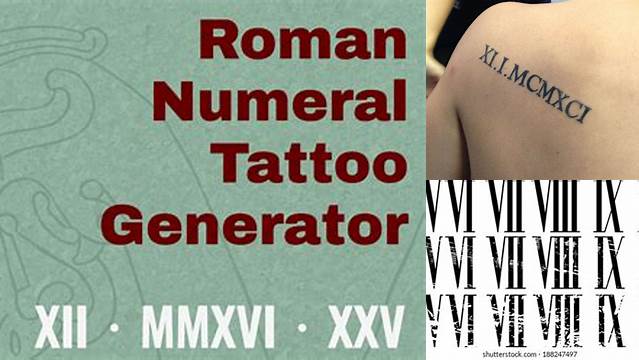
Free Roman Numeral Tattoo Font Generator
So, you're thinking about getting a tattoo? Awesome! And you're digging the classic look of roman numerals? Even better! But before you head to the tattoo parlor, let's talk about how to get that perfect roman numeral design. One of the coolest ways to do this is by using a free roman numeral tattoo font generator. These tools can help you visualize your tattoo in different fonts and styles, making sure you end up with something you absolutely love. Let's dive into the world of roman numeral tattoos and how these generators can be your best friend in the design process.
1. Understanding Roman Numerals for Tattoos
First off, let's make sure we're all on the same page about roman numerals. These ancient symbols have a timeless appeal, making them a popular choice for tattoos. Whether it's a date, a name, or a significant number, roman numerals add a touch of elegance and mystery. Before you even start looking at fonts, make sure you've got your numbers right. I (1), V (5), X (10), L (50), C (100), D (500), and M (1000) are the building blocks. Get the sequence wrong, and your tattoo might not mean what you think it does!
Why Choose Roman Numerals?
Roman numerals offer a unique way to commemorate important dates or numbers. They're classic, sophisticated, and have a certain air of mystery. Think about it: a birthdate in roman numerals looks way more artistic than just plain numbers. Plus, they're not as immediately obvious to everyone who sees them, adding a layer of personal meaning. But remember, double-check your numerals! Nothing's worse than a permanent mistake.
Speaking of mistakes, let's cover some common pitfalls. The most frequent error? Incorrectly converting numbers. Always double or even triple-check your conversion, and maybe even have a friend look it over. Another mistake is choosing a font that's too intricate or thin. Over time, fine lines can blur, making your tattoo look like a mess. Stick to bolder, clearer fonts for longevity. And finally, consider the placement. A long string of numerals might not fit well on a small area.
2. The Appeal of Free Roman Numeral Tattoo Font Generators
Okay, now that we've got the basics down, let's talk about why these font generators are so awesome. These tools let you play around with different styles without spending a dime. You can see how your chosen numerals look in various fonts, sizes, and arrangements. It's like having a virtual tattoo artist at your fingertips! And the best part? It's free! You can experiment to your heart's content until you find the perfect design.
Benefits of Using a Generator
There are so many upsides to using a generator. For starters, you get instant visualization. No more guessing how a certain font will look on your skin. You can see it right there on the screen. Plus, these generators offer a ton of variety. From classic serif fonts to modern sans-serif styles, you can explore a wide range of options. And let's not forget the convenience factor. You can do this from the comfort of your own home, anytime you want. No appointments, no pressure, just pure creative freedom.
Limitations to Keep in Mind
Of course, no tool is perfect. Free generators might have limitations. Some might not offer as many font choices as paid software, and the customization options might be a bit restricted. Also, the preview you see on the screen is just that—a preview. The final tattoo will depend on the skill of your artist and how the ink settles on your skin. So, while a generator is a great starting point, it's not the final word. Always consult with your tattoo artist before making any decisions.
3. Top Free Roman Numeral Tattoo Font Generators
Ready to dive in? Let's look at some of the top free roman numeral tattoo font generators out there. These tools offer a range of options and features, so you can find the one that best suits your needs. We'll cover some popular choices and what makes them stand out.
List of Recommended Generators
There are several fantastic options available online. Websites like DaFont, FontSpace, and 1001 Free Fonts offer a plethora of fonts that can be used for roman numerals. While they're not specifically tattoo generators, you can type in your numerals and see how they look in different fonts. For more specialized tools, try Tattoodo or Custom Tattoo Design. These platforms often have features that let you preview your design on a body image, giving you a better sense of the final result.
Features to Look For
When you're checking out generators, keep an eye out for certain features. A good generator should offer a wide variety of fonts, from classic to modern. Customization options are key—you'll want to adjust the size, spacing, and color. A preview feature is essential, so you can see how your design will look. And if the generator lets you download your design, that's a huge plus. That way, you can bring it to your tattoo artist as a reference.
4. How to Use a Roman Numeral Tattoo Font Generator
Alright, let's get practical. How do you actually use these generators? It's usually pretty straightforward, but we'll walk through the steps to make sure you've got it down. From inputting your numerals to tweaking the design, we'll cover everything you need to know.
In conclusion, getting a roman numeral tattoo can be a meaningful and stylish way to commemorate something important in your life. By using a free roman numeral tattoo font generator, you can explore different designs and find the perfect font for your needs. Remember to consult with your tattoo artist to ensure your design is both beautiful and long-lasting. Happy inking, guys!